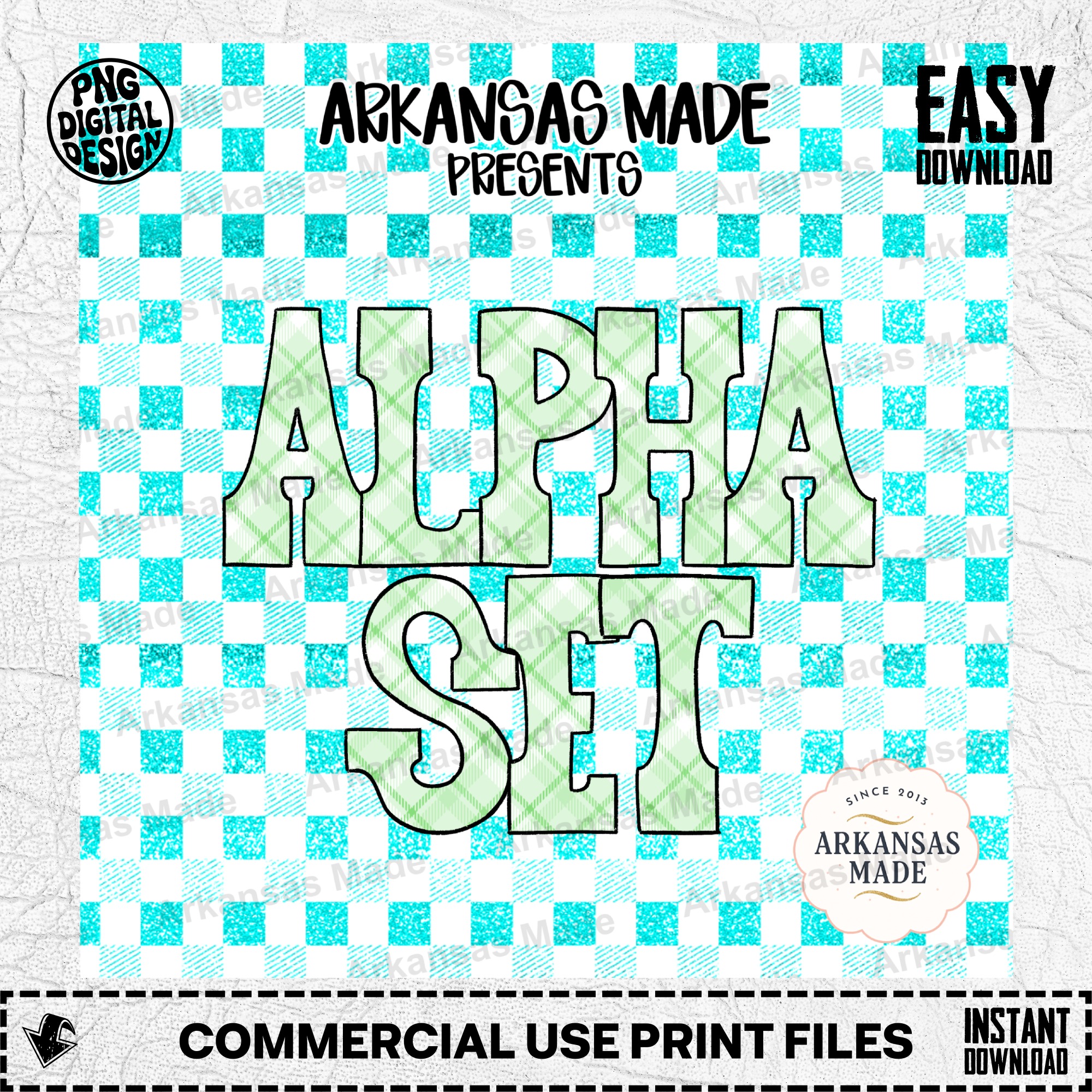
Green Plaid Alphabet PNG Set, Rustic Gingham Letters Clipart Bundle, Digital Alpha Pack for Crafts, Farmhouse Font PNG
Elevate your designs with this charming Green Plaid Alphabet PNG Set, featuring rustic gingham letters perfect for digital crafts and sublimation. This versatile digital alpha pack brings a cozy farmhouse aesthetic to any project, ideal for crafters, small business owners, and DIY enthusiasts. Create personalized gifts, unique branding, or delightful scrapbook pages with ease. It’s a thoughtful digital gift for creative friends or anyone starting a crafting journey!